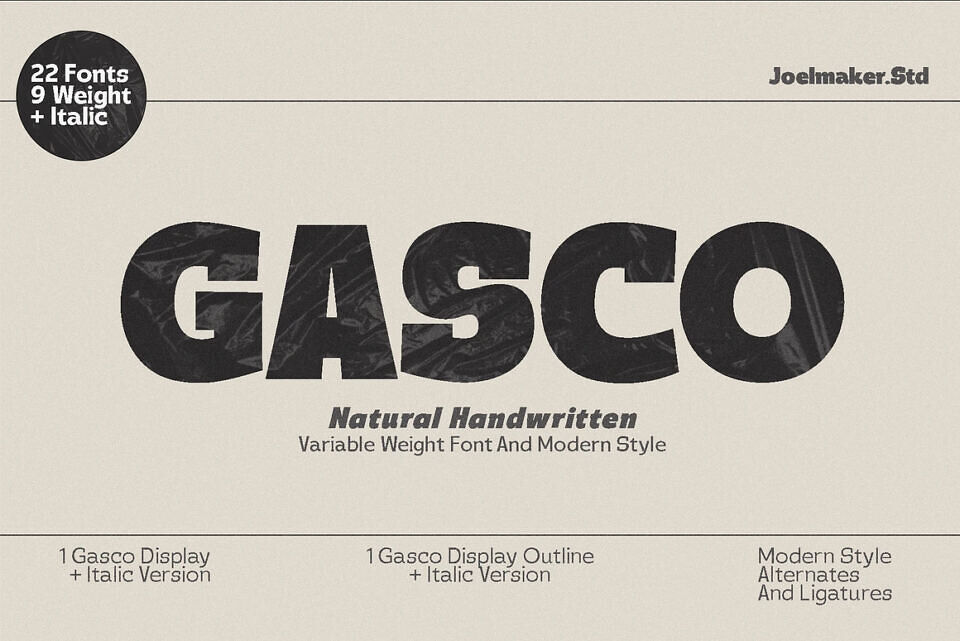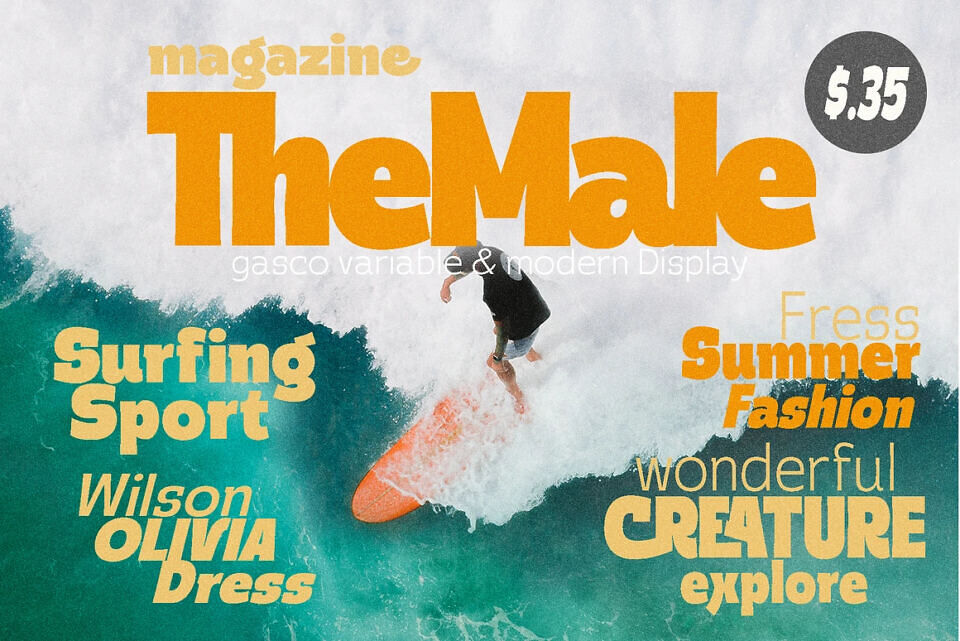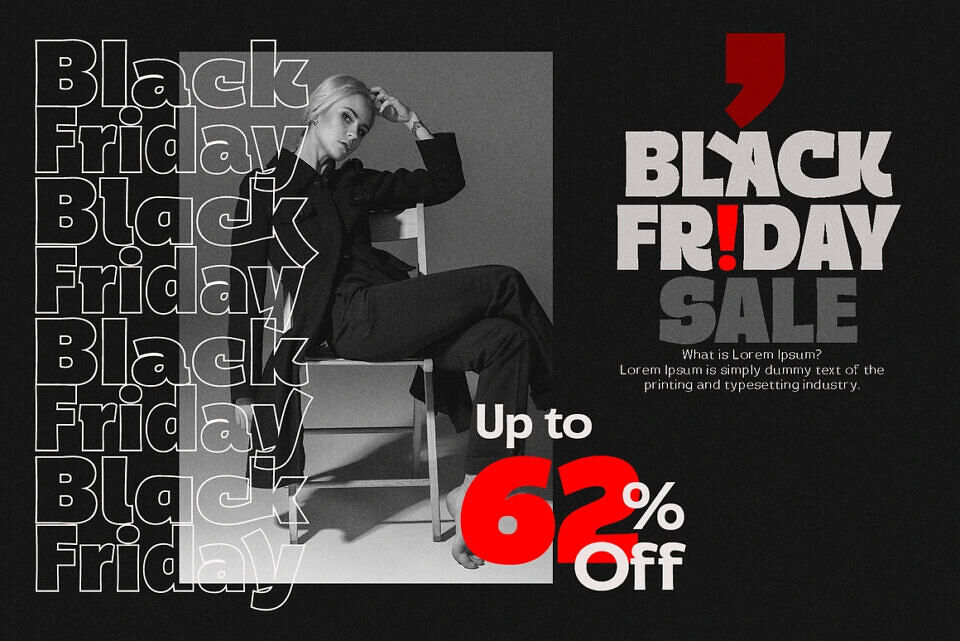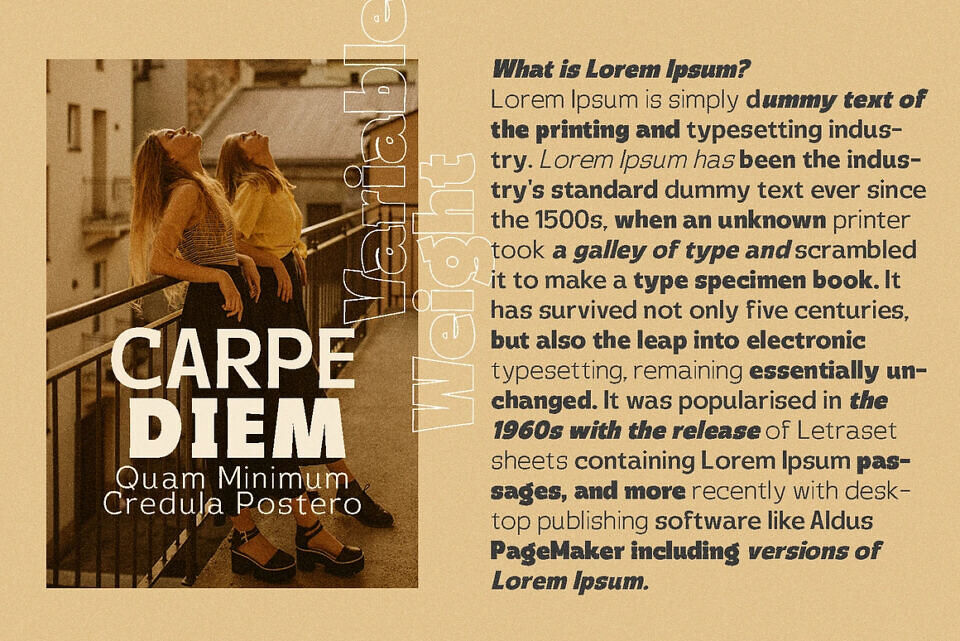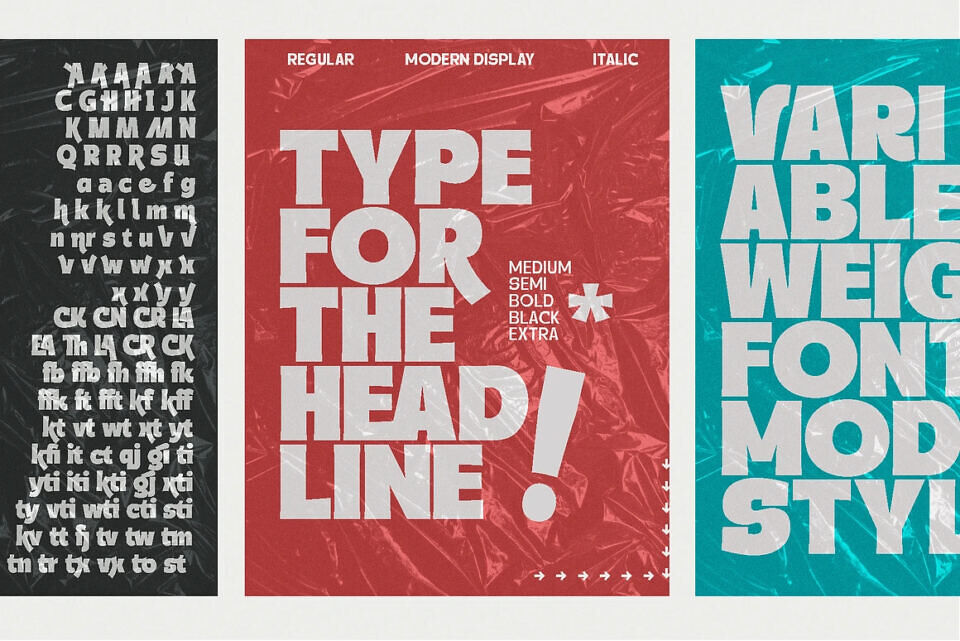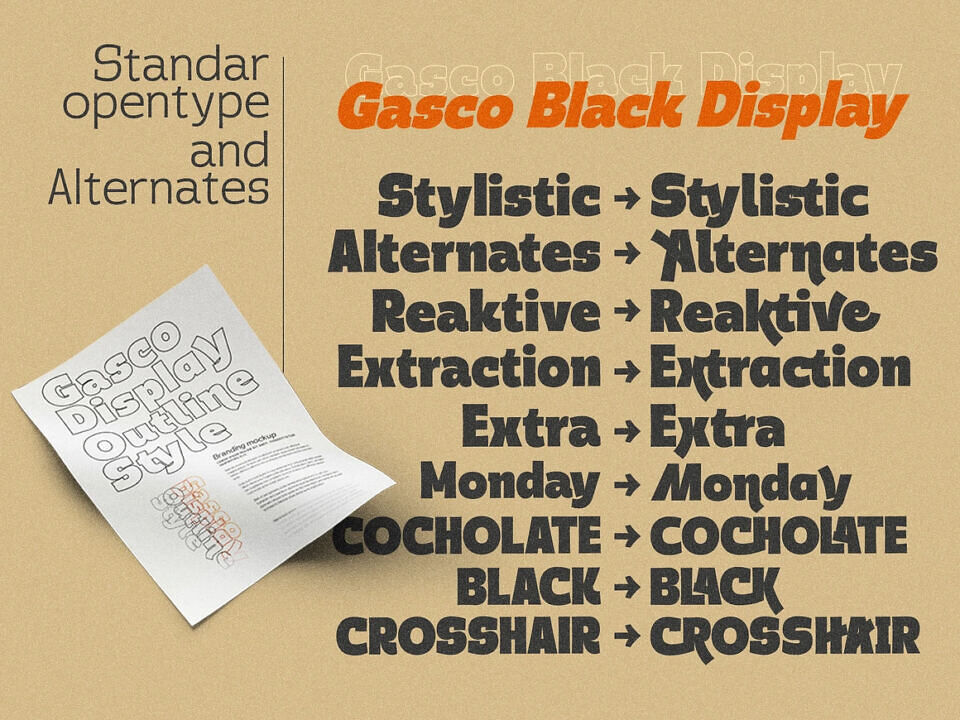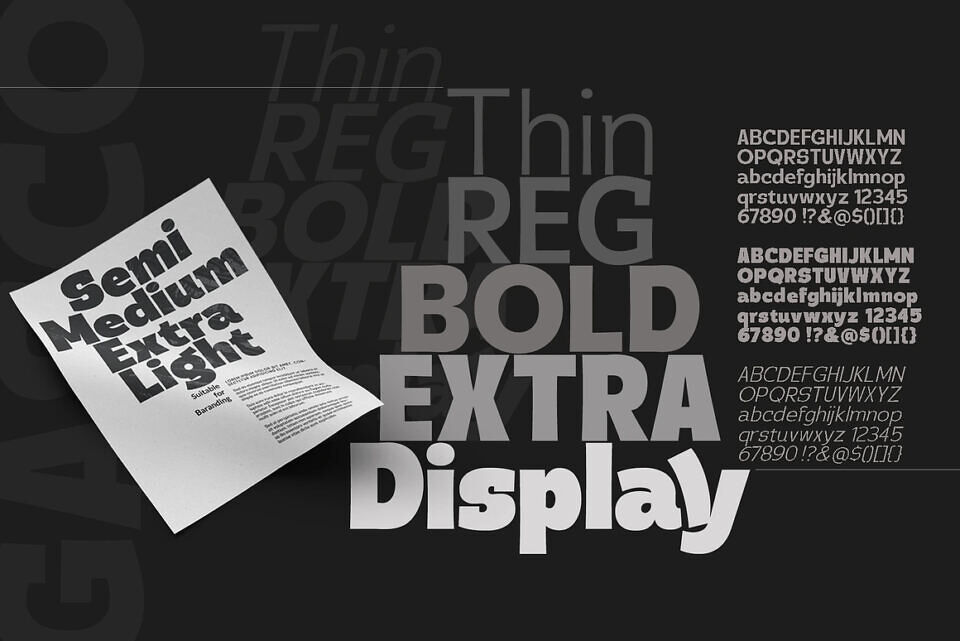
Gasco Font Family
Gasco Sans & Gasco Display+ Outline is a collection of natural handwritten letters inspired by the retro style of the 70s and 80s, as if taking us a little back to the manual era, this type of letter is very unique, you can change it from modern to retro or vintage style with a combination of a collection of alternates so it is ready to help you to Your design looks elegant, in the picture shown you can see what these letters can do
There is a condensed version and an italic version of the font included 9 Upright and 9 Italic weights, ranging from Sheer to Black, all coming in 1 Display style.
The font family also comes with 1 more elegant display style.
• 18 Styles, 9 Upright, 9 Italic, 1 Display + Italic, 1 Outline + Italic